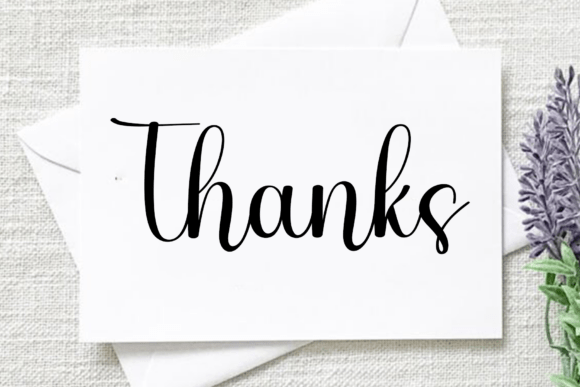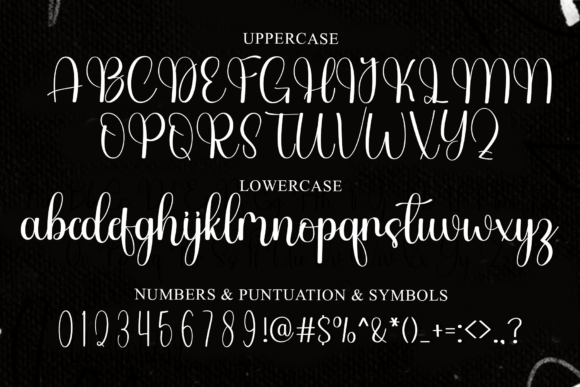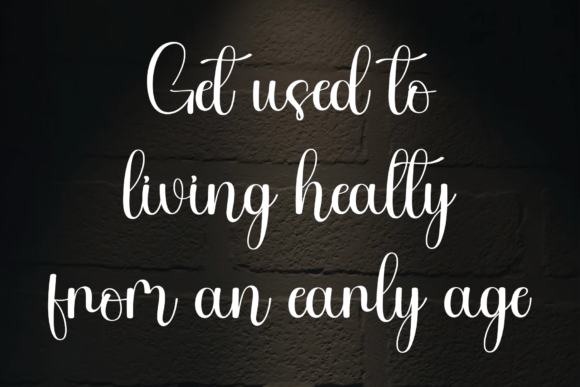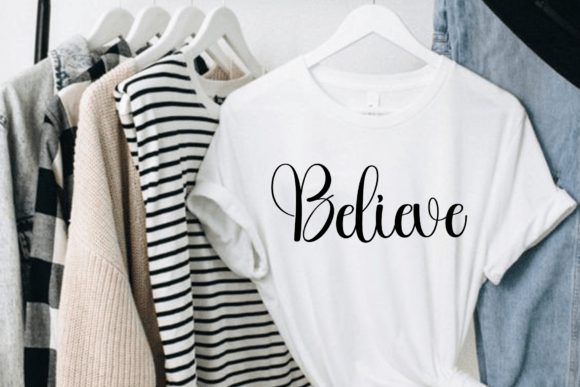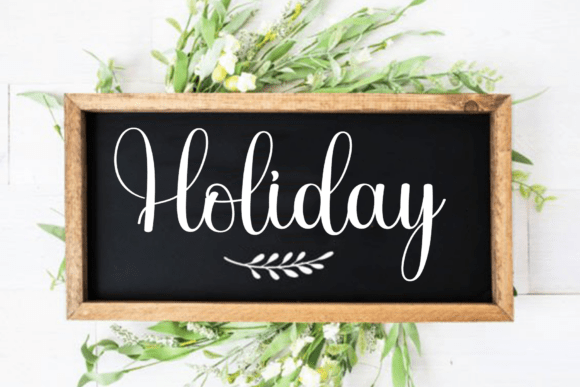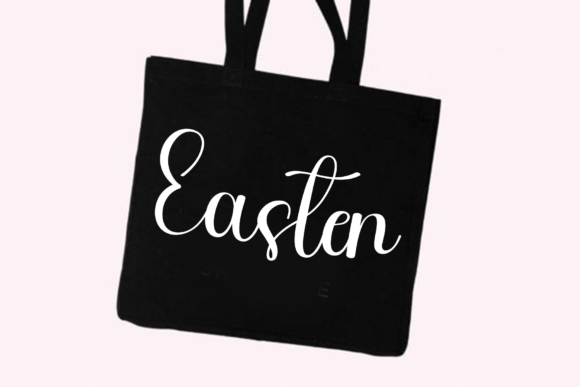
Introducing Alignment Business Font: The Perfect Blend of Casual and Creative
Are you tired of using the same old fonts for your personal projects, invitations, and social media graphics? Look no further than Alignment Business Font, a casual and creative font that exudes warmth and friendliness. Its round, playful strokes create a relaxed and approachable feel that’s perfect for designers and crafters looking to add a personal touch to their work.
The Charm of Hand-Drawn Aesthetic
Alignment Business Font boasts a charming, hand-drawn aesthetic that adds a fun and unique touch to any design. Its playful strokes and rounded edges create a sense of approachability and warmth, making it perfect for projects that require a personal and friendly feel. Whether you’re designing an invitation, a social media graphic, or a personal project, this font is sure to make your work stand out.
One of the best things about Alignment Business Font is its versatility. It’s perfect for a wide range of projects, from personal invitations to social media graphics, and even business branding. The font’s casual and creative vibe makes it suitable for designers and crafters who want to add a personal touch to their work. Whether you’re creating a logo, a brochure, or a website, this font is sure to bring a unique and playful touch to your design.
So, what are the benefits of using Alignment Business Font for designers and crafters? Here are a few:
- Unique and Playful Touch: This font adds a fun and unique touch to any design, making it perfect for projects that require a personal and friendly feel.
- Versatility: Alignment Business Font is suitable for a wide range of projects, from personal invitations to social media graphics, and even business branding.
- Warm and Friendly Feel: The font’s round, playful strokes create a relaxed and approachable feel that’s perfect for designers and crafters looking to add a personal touch to their work.
Tips for Using Alignment Business Font
Here are a few tips for using Alignment Business Font in your designs:
- Pair it with Other Fonts: Try pairing Alignment Business Font with other fonts to create a unique and interesting contrast.
- Use it for Headings and Titles: The font’s playful and creative vibe makes it perfect for headings and titles.
- Add a Personal Touch: Use Alignment Business Font to add a personal touch to your designs, making them more approachable and friendly.
In conclusion, Alignment Business Font is a casual and creative font that’s perfect for designers and crafters looking to add a personal touch to their work. Its charming, hand-drawn aesthetic and playful strokes create a relaxed and approachable feel that’s suitable for a wide range of projects. With its standard PUA Encoded glyphs and compatibility with various application engines, this font is easy to use and versatile. So, why not give Alignment Business Font a try and see how it can elevate your designs?